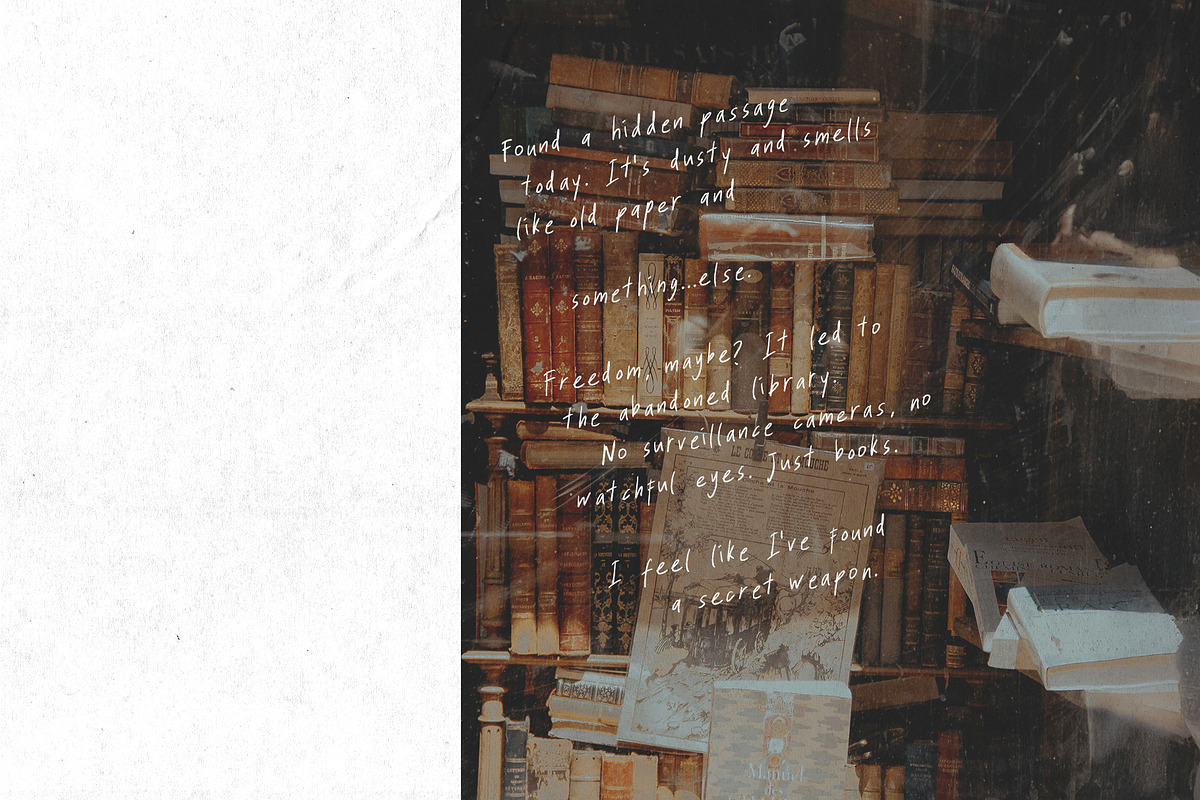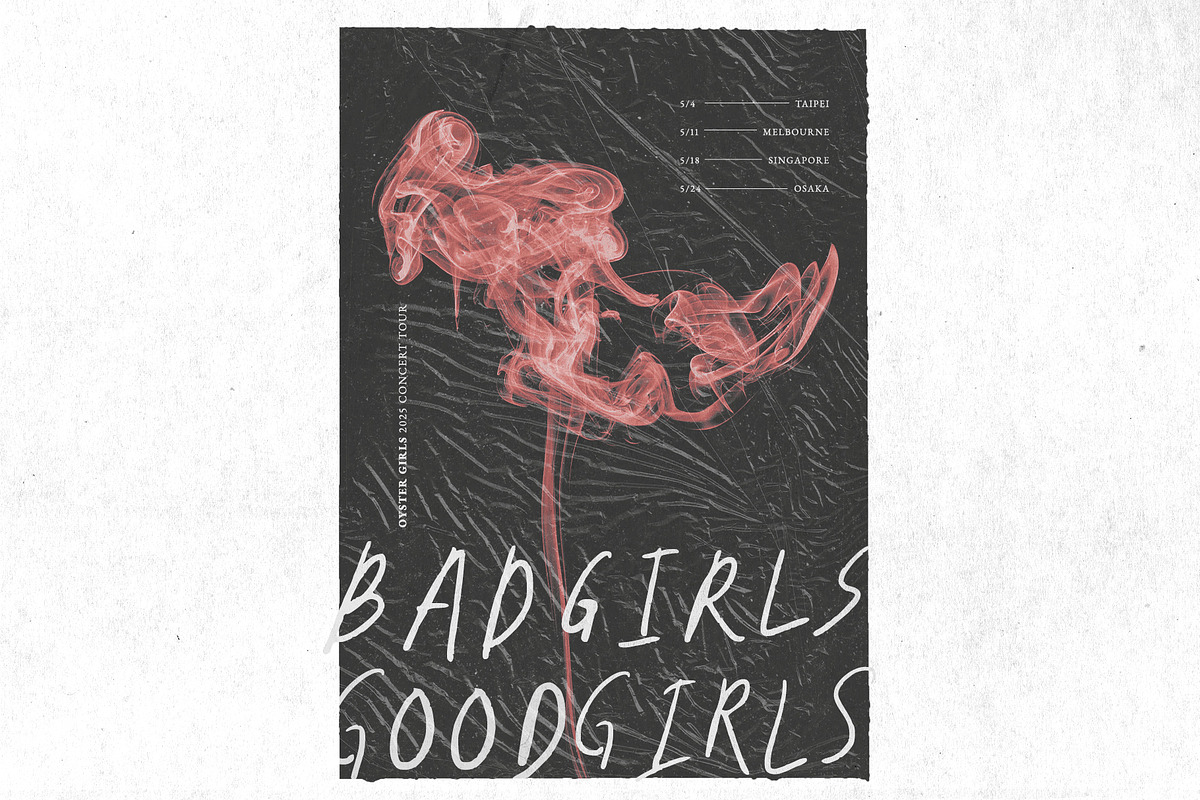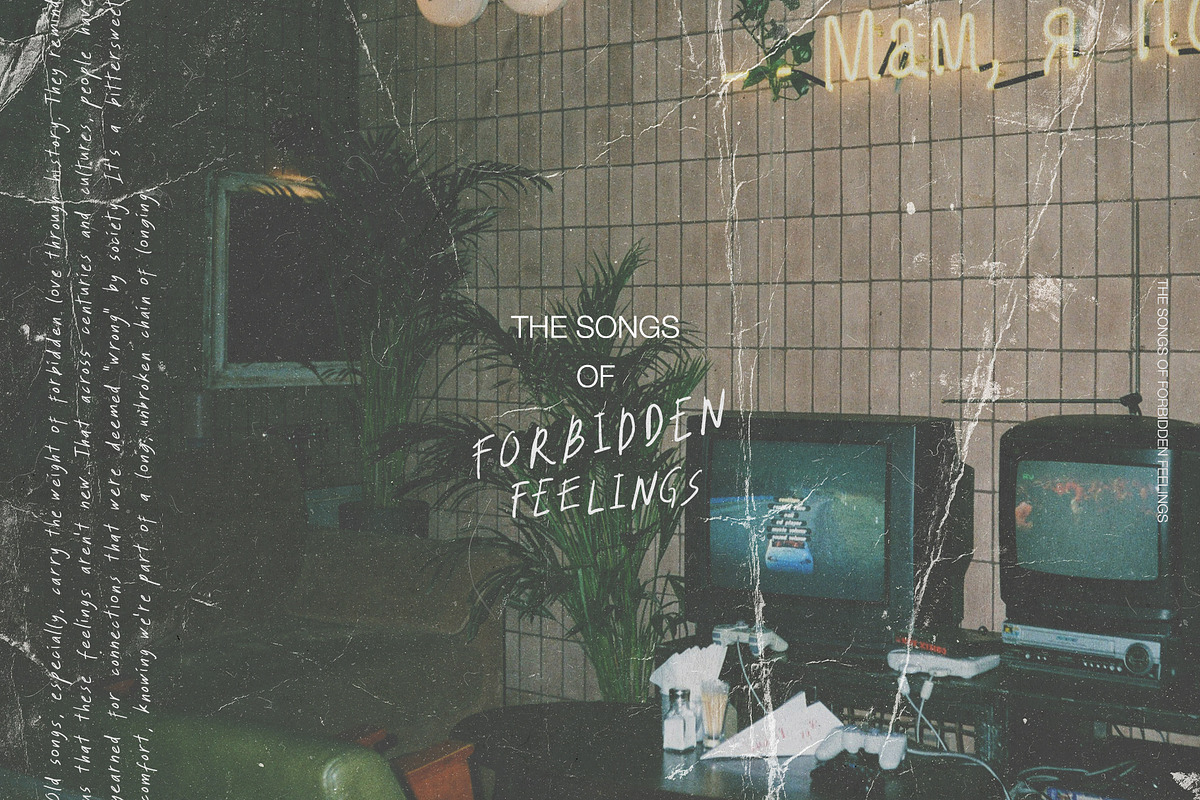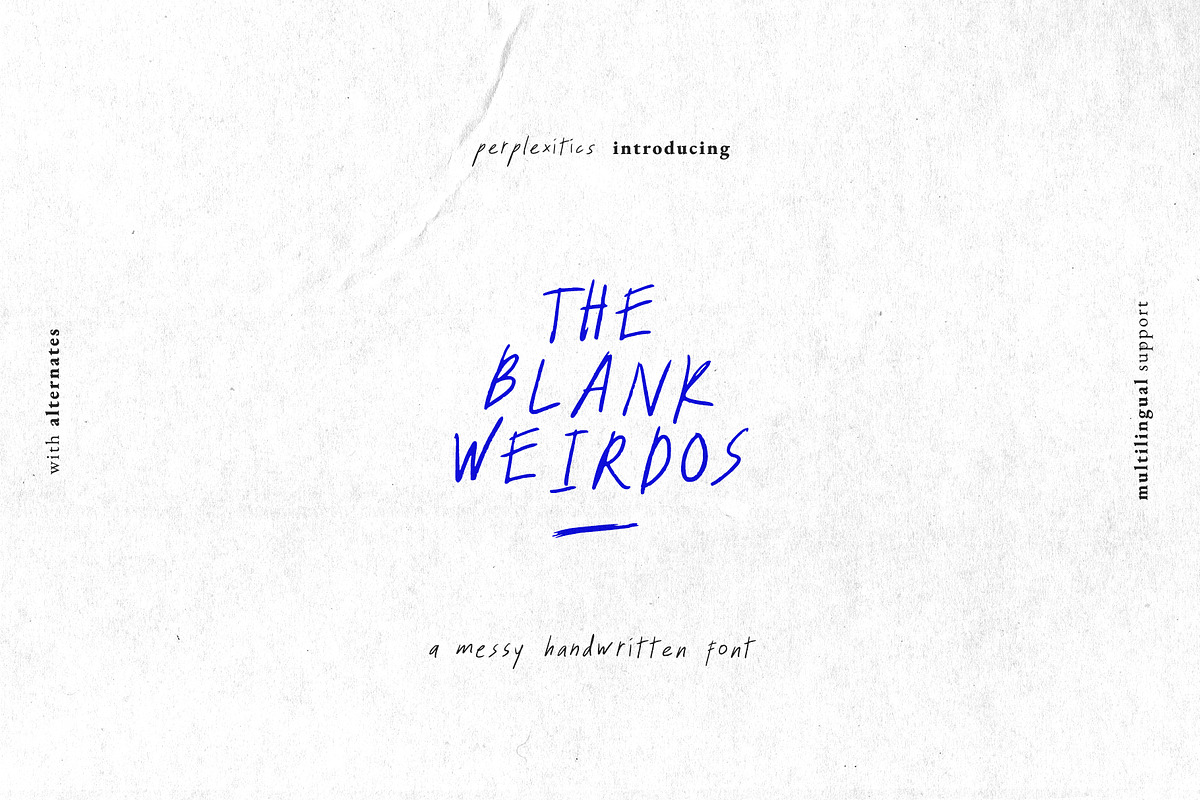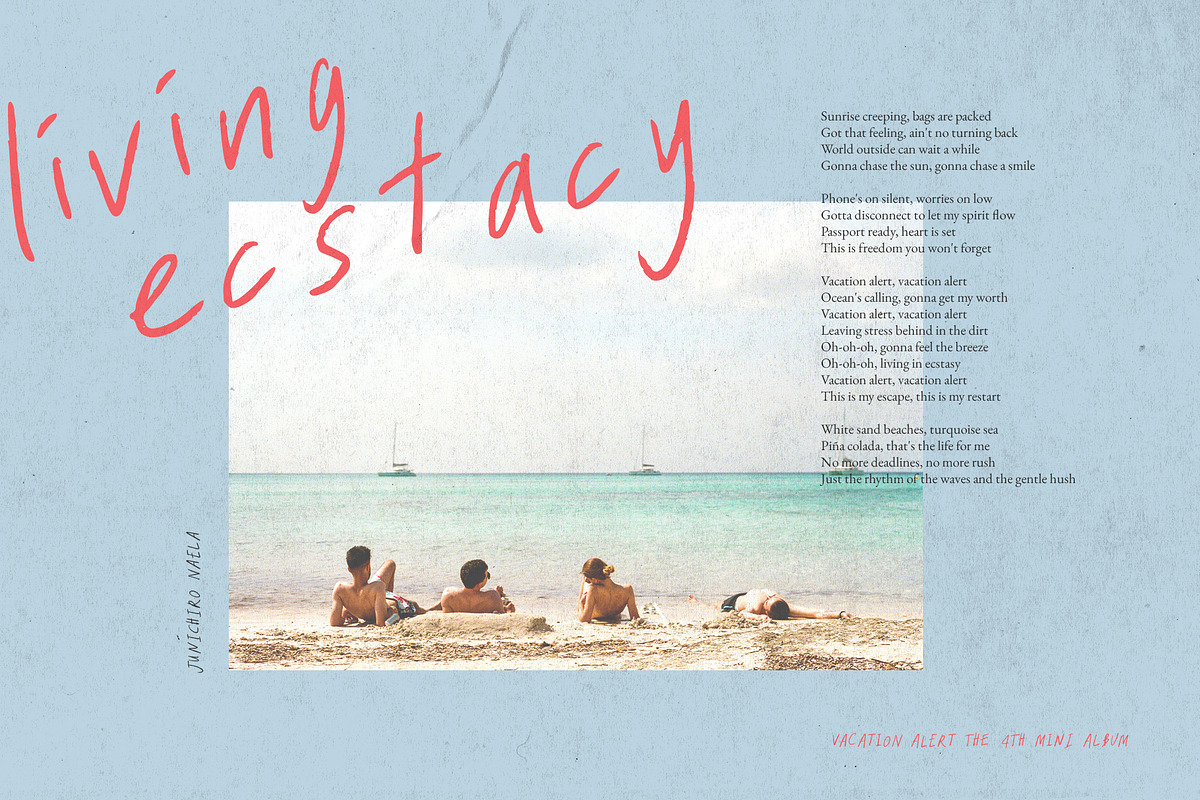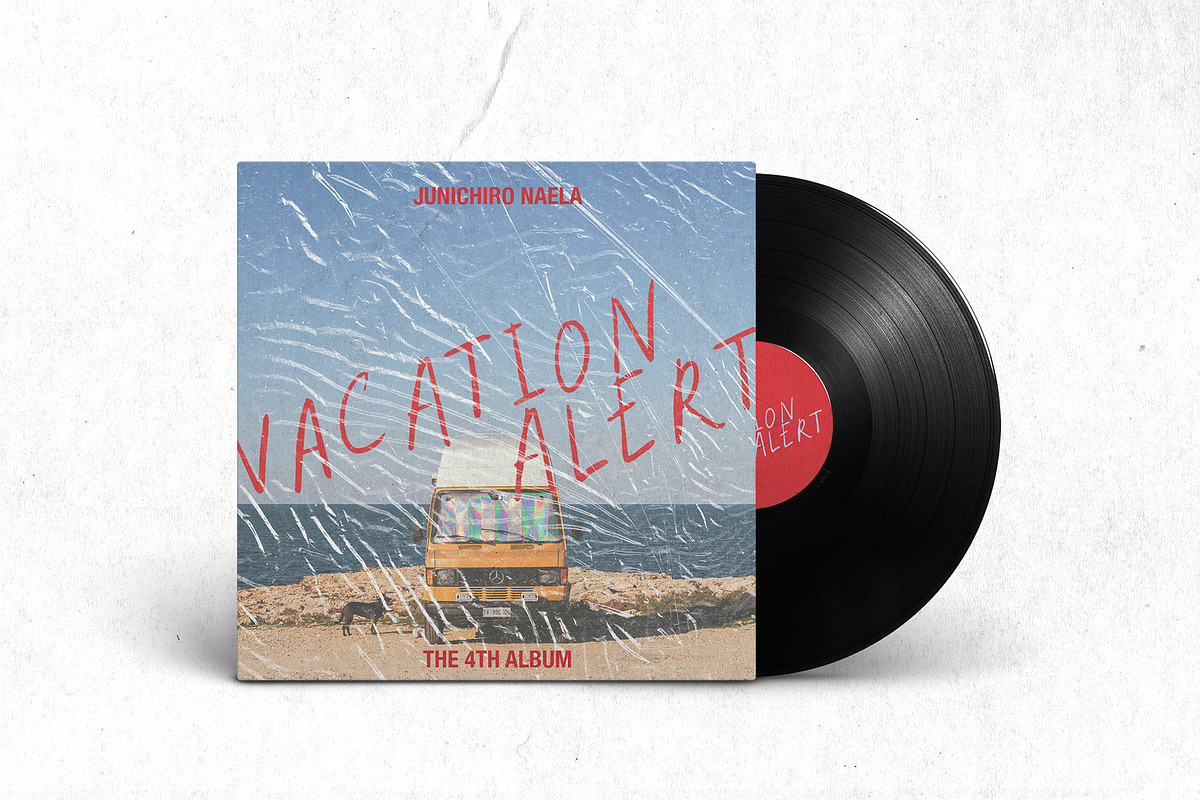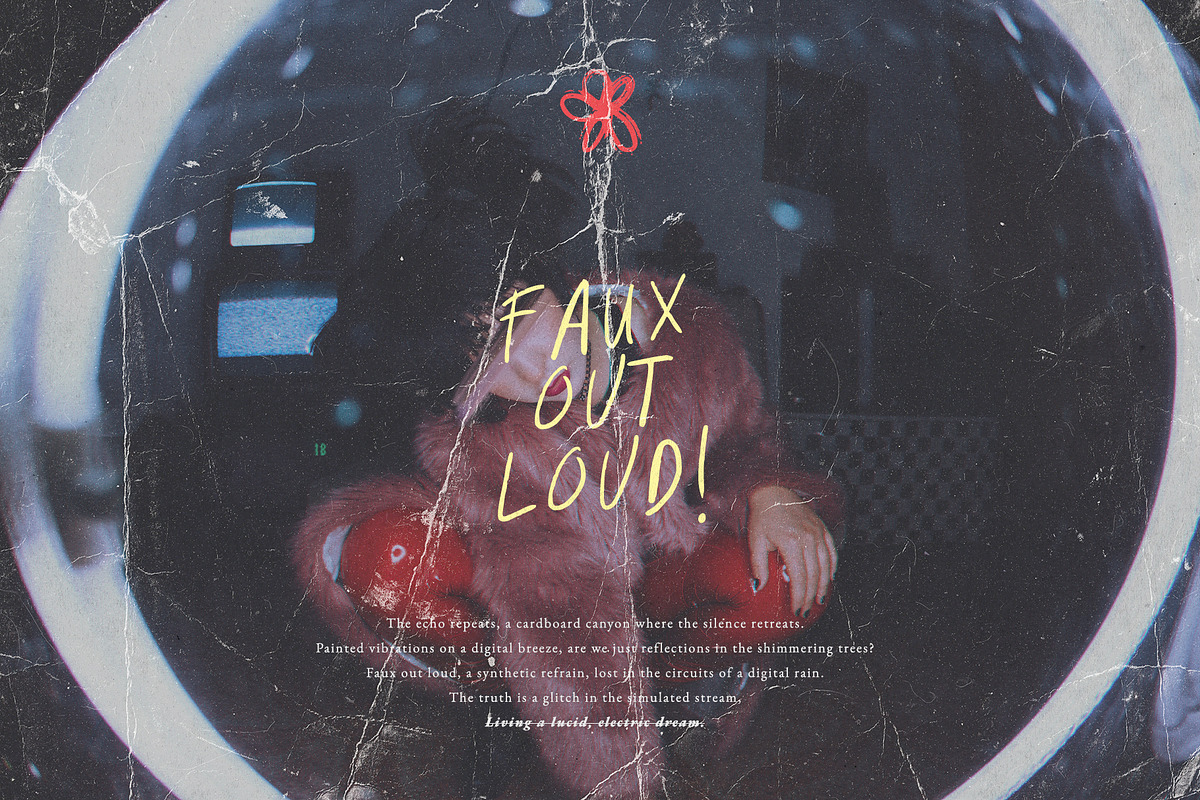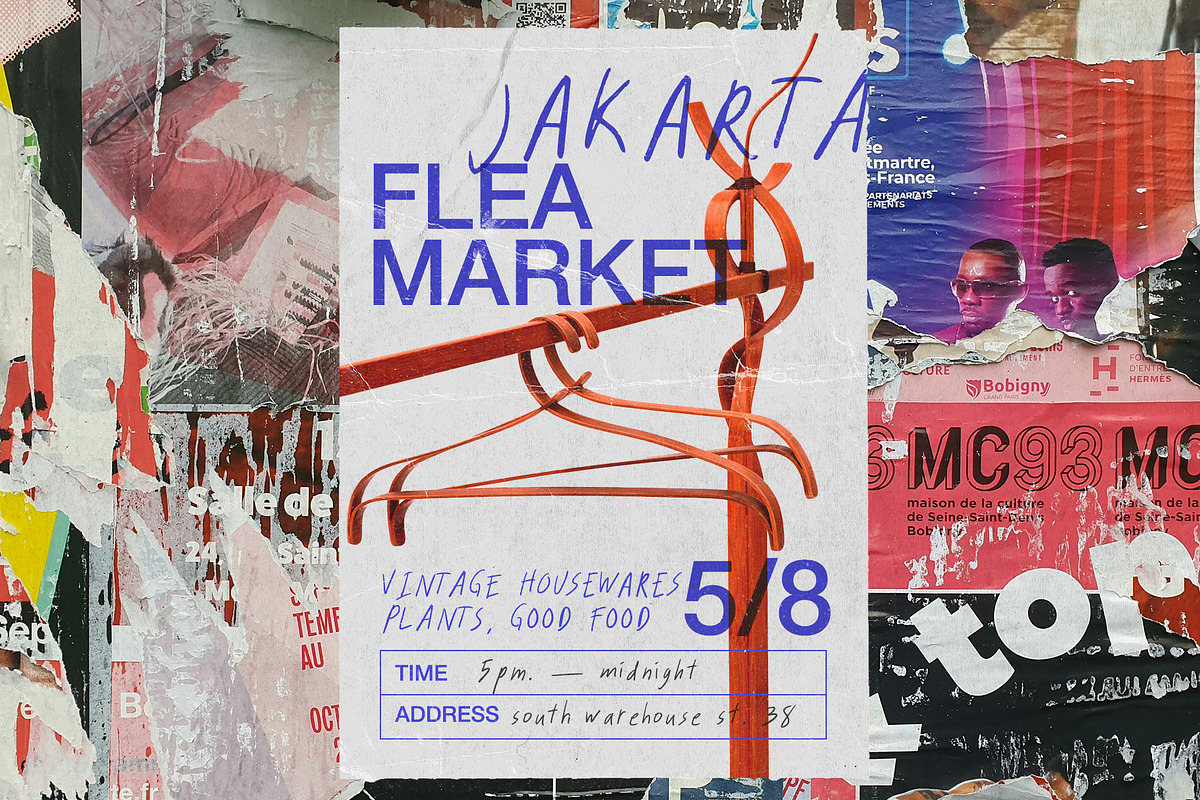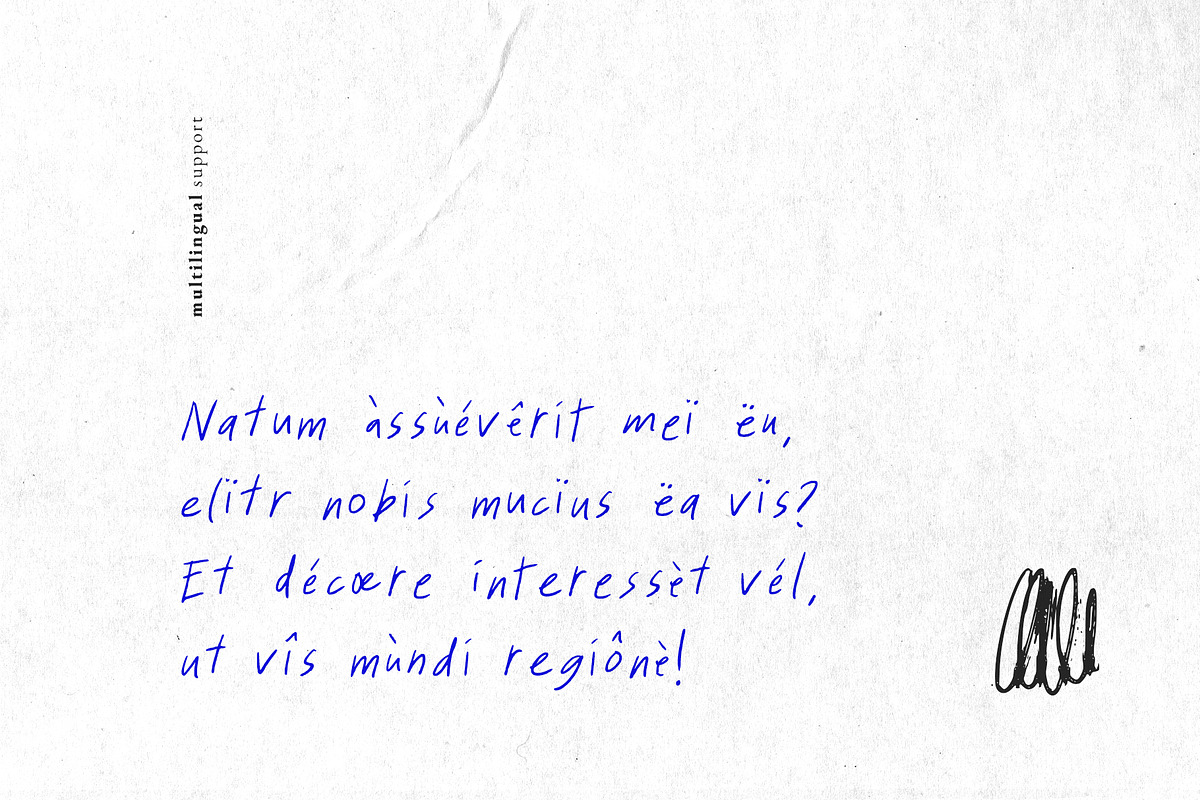
The Blank Weirdos Handwritten Font
The Blank Weirdos is an organic messy handwritten font that conveys a sense of spontaneity. The Blank Weirdos Handwritten Font is packed with everything you need, including uppercase and lowercase letters, numbers, and punctuation. Multilingual support.